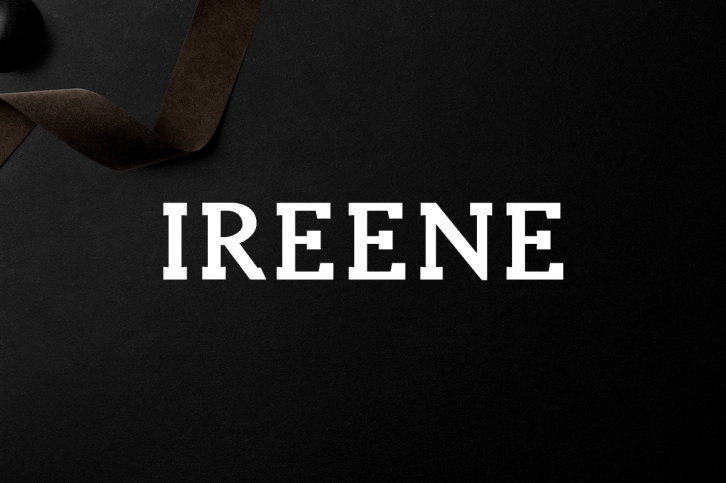
Ireene is a lovely slab serif font, a typeface that toes the line between simplicity and athleticism. Useful in a large number of ways, Ireene is a great font that functions for display or in combination with other fonts.